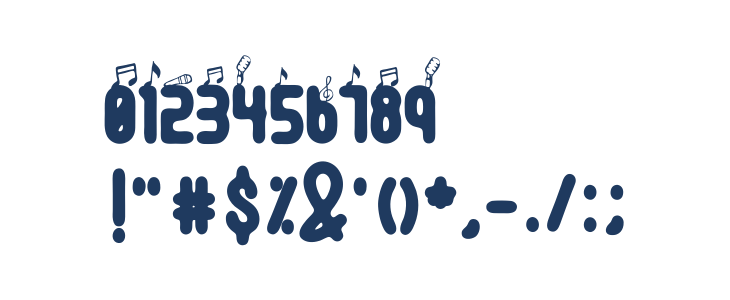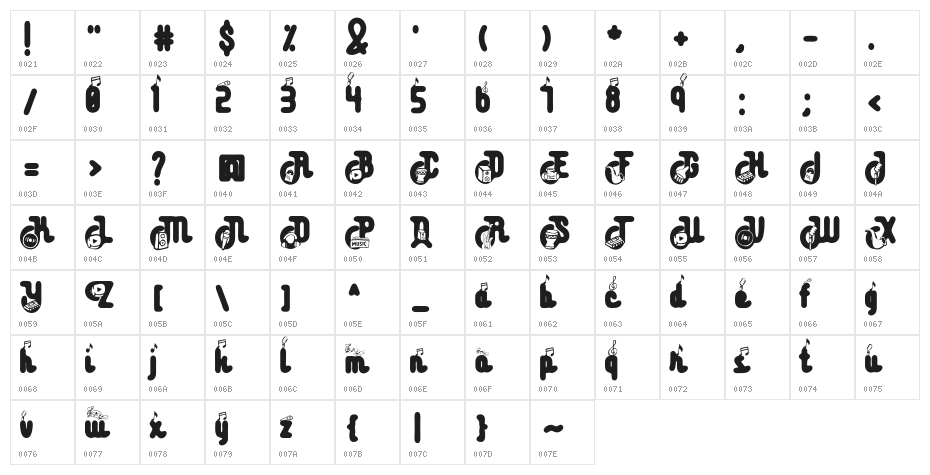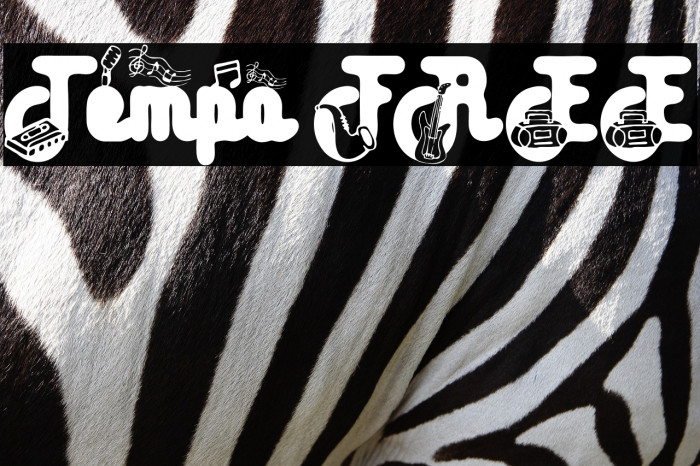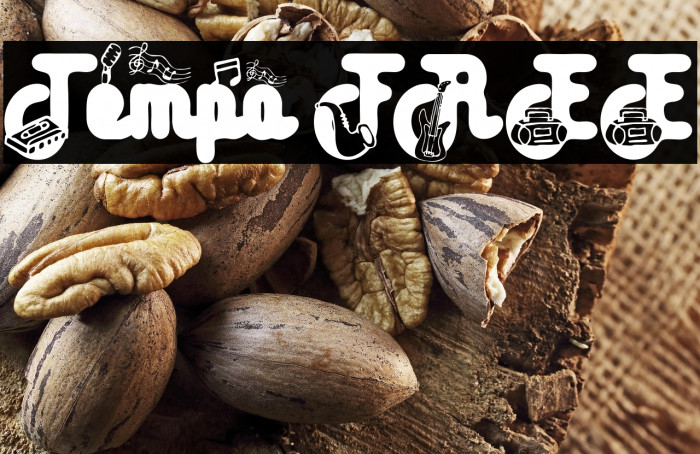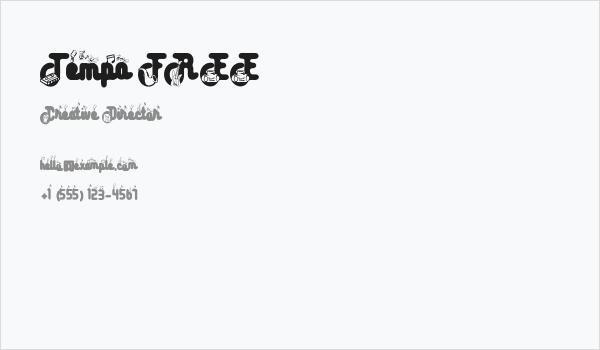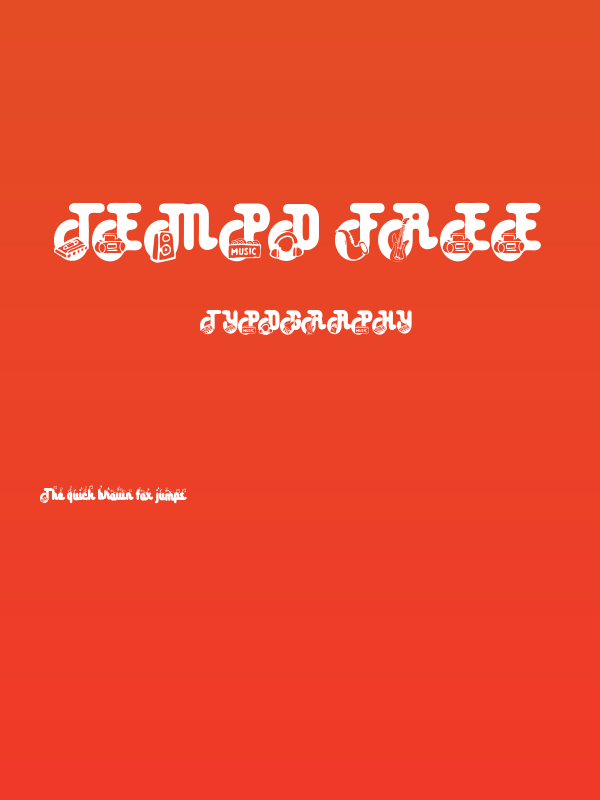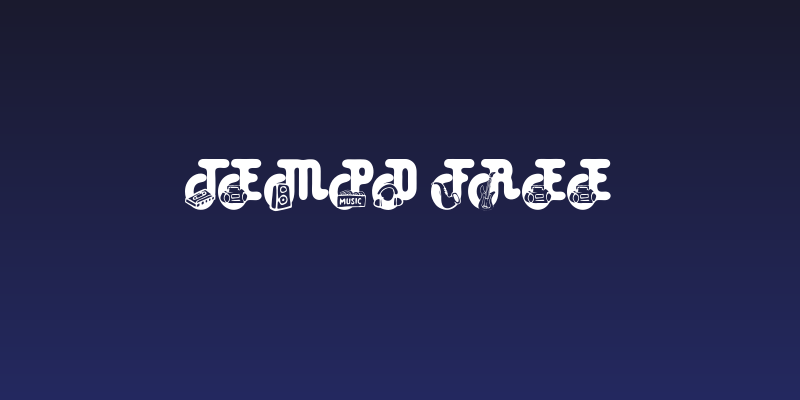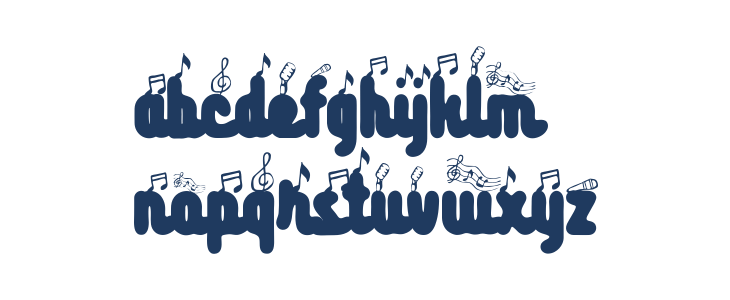
Tempo FREE Font
This playful and energetic font is characterized by its bold, rounded letters that are creatively integrated with musical elements such as notes, instruments, and microphones. Each character is uniquely designed to incorporate these musical motifs, giving the font a dynamic and lively appearance. The uppercase and lowercase letters maintain a consistent style, with a strong emphasis on music-themed embellishments. The numbers and special characters follow the same thematic design, ensuring a cohesive look across all elements. This font is perfect for projects that aim to convey a sense of fun, creativity, and musicality.
Proposed ProjectsIdeal for music event posters, album covers, music-themed merchandise, and creative branding projects.